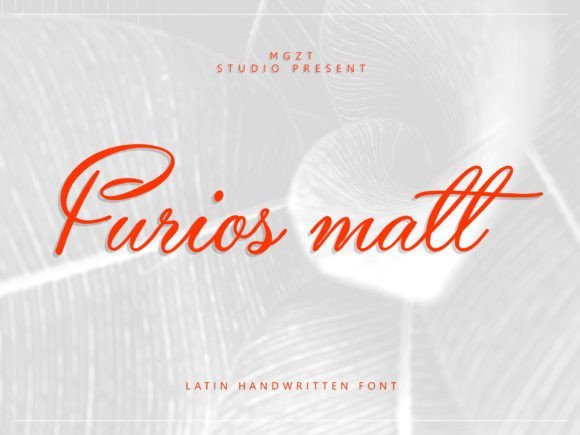
Falling in Love with the Art of Typography
Have you ever stumbled upon a font that leaves you speechless, like stumbling upon a hidden treasure in a dusty old bookstore? For many designers, that moment comes when they discover the perfect font to elevate their project. For me, it was the discovery of Furios Malt Font, a handwritten script font that exudes elegance and sophistication.
Furios Malt Font is more than just a font – it’s a reflection of the artistry and finesse that goes into creating a truly beautiful piece of typography. Rooted in Latin script traditions, this font features fluid, graceful strokes that mimic the fine artistry of calligraphy. Whether you’re designing wedding invitations, formal event announcements, or high-end branding, Furios Malt Font is a valuable addition to any designer’s toolkit.
With its delicate lines and balanced proportions, Furios Malt Font ensures high readability while adding a luxurious feel to any project. Whether you’re a seasoned designer or just starting out, this font is sure to become a trusted companion in your creative journey.
Furios Malt Font Key Features
- Font Family: Furios Malt Font
- Unique Characteristics: Furios Malt Font features a unique, hand-crafted design with bold and expressive lines, making it ideal for use in graphic design, advertising, and editorial contexts.
- Language Support: Supports multiple languages, including Latin-based languages, Cyrillic, and Greek.
Furios Malt Font Review
I recently had the chance to work with Furios Malt Font, and I must say it was an interesting experience. Here’s my honest take on this font.
- Unique Character: Furios Malt Font has a distinct personality that can add a touch of playfulness to your designs.
- Good Legibility: The font is clear and easy to read, even at smaller sizes.
- Limited Customization: Furios Malt Font can be a bit restrictive in terms of customizing its style or creating variations.
- Not Suitable for Formal Content: Due to its playful nature, Furios Malt Font might not be the best choice for formal or professional content.
- Some Characters May Be Missing: I encountered a few instances where certain characters or glyphs were not available in the font.
Furios Malt Font is a fun, energetic font that can add a unique touch to your designs. While it has some limitations, it can be a great choice for projects that require a playful or creative vibe. Just be mindful of its limitations and ensure it aligns with your design goals.
Furios Malt Font is ideal for:
- Creating unique and eye-catching titles and headings.
- Designing posters and flyers.
- Creating professional-looking presentations and documents.